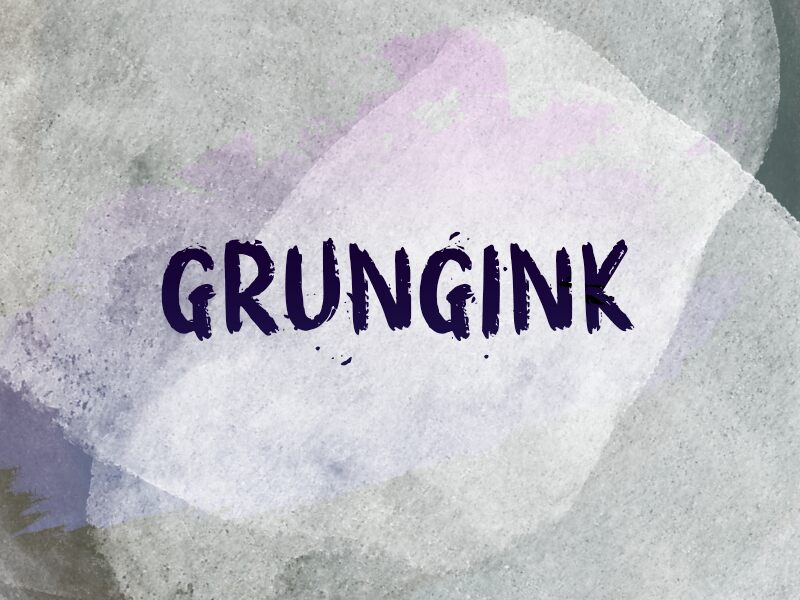
GRUNGINK
Grungink is a captivating script font that exudes a raw, unrefined charm. With its bold, almost distressed strokes and irregular edges, this typeface evokes a sense of grit and industrial aesthetics. The font's unconventional design lends itself well to a variety of applications, from eye-catching headlines in edgy publications to impactful branding for alternative music acts or urban lifestyle brands.
Grungink's versatility shines through its ability to convey a sense of authenticity and rebellious spirit, making it a versatile choice for designers seeking to create a striking visual impact.